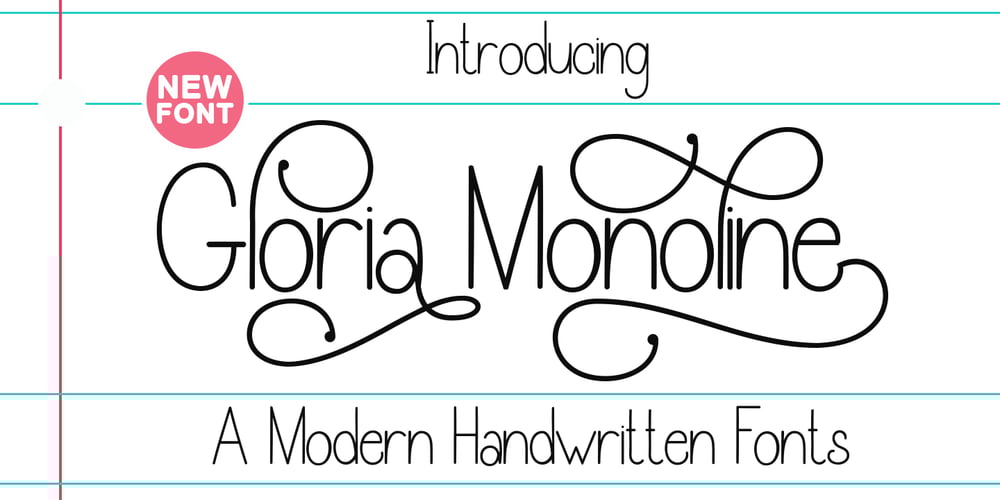
Gloria Monoline
Gloria Monoline font
Gloria Monoline Font Family was designed by Ikhsan Maulana and published by IM Studio. Gloria Monoline contains 1 styles and family package options. Gloria Monoline is a text serif with an editorial focus designed by Ikhsan Maulana. The idea for a typography job came from a design school letter-making exercise: Get a pair of scissors and some large sheets of paper, and start cutting. The resulting letters and the act of cutting them from paper inform the type design process, resulting in strong, simple shapes and open, inviting textures. The tone is crisp and straightforward. The classic letterforms, with a playful touch, give the design a personality that is both practical and spontaneous. The text weight is capable of adjusting copies at various sizes to print and render clearly on screen. Its lightest and heaviest weights work best at display sizes. Great care has been taken to save typists time with OpenType features including contextual punctuation and symbols to match case-sensitive, lower-case, and all-caps settings, as well as set images set for each use.